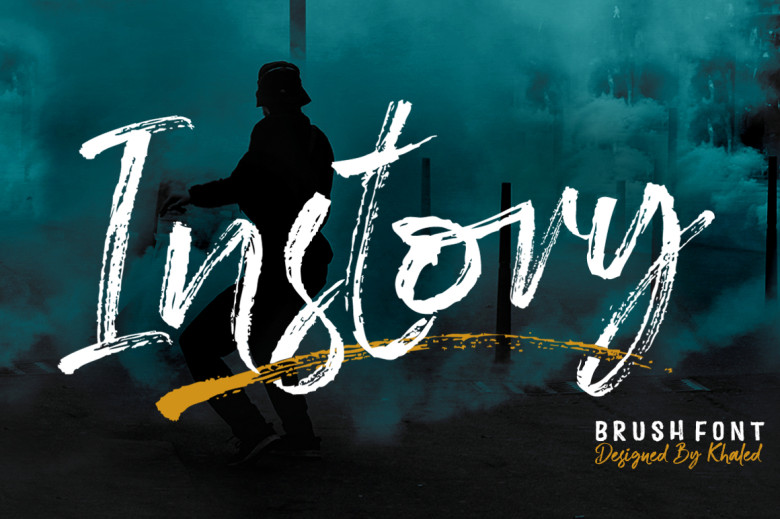
Instory Font
Instory is a modern Brush font with an irregular baseline that makes it suitable for title designs in clothing, invitations and book titles as well as stationery quotes branding logos and stationery quotes. Additionally, Instory comes equipped with uppercase lettering as well as multilingual support with punctuation marks and numbers as part of its offering.
Instory Brush Script Font